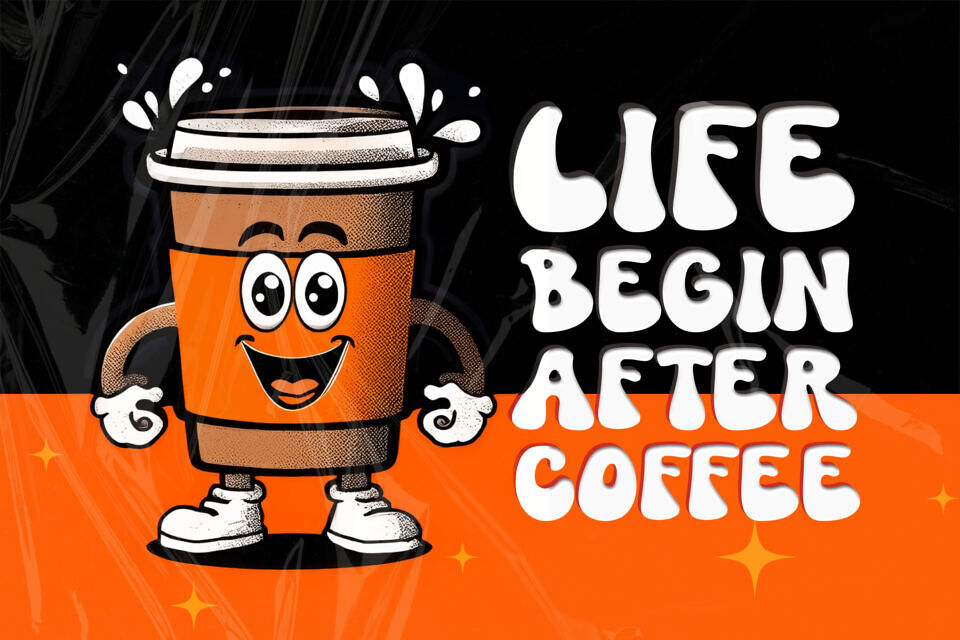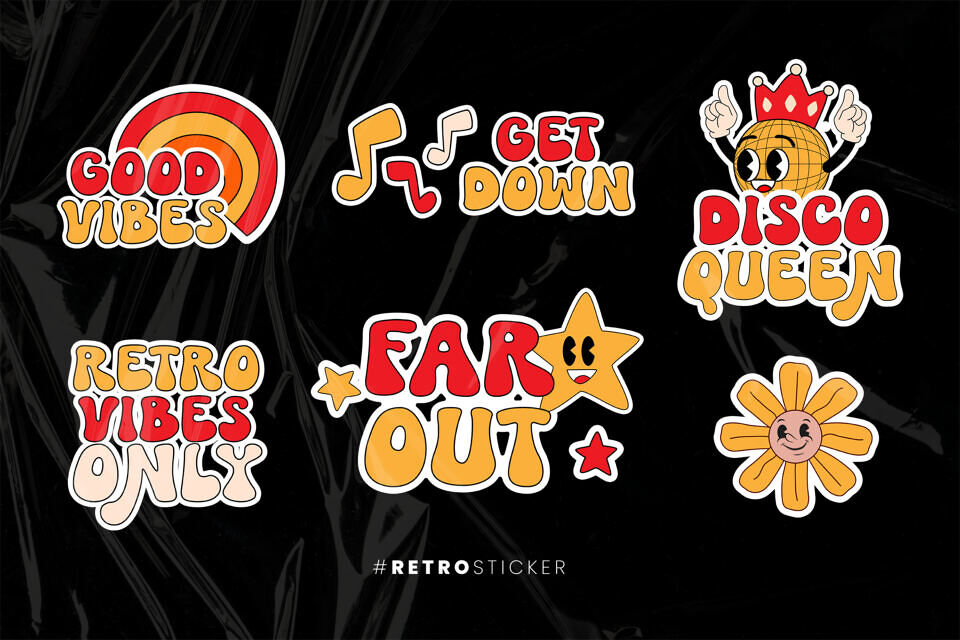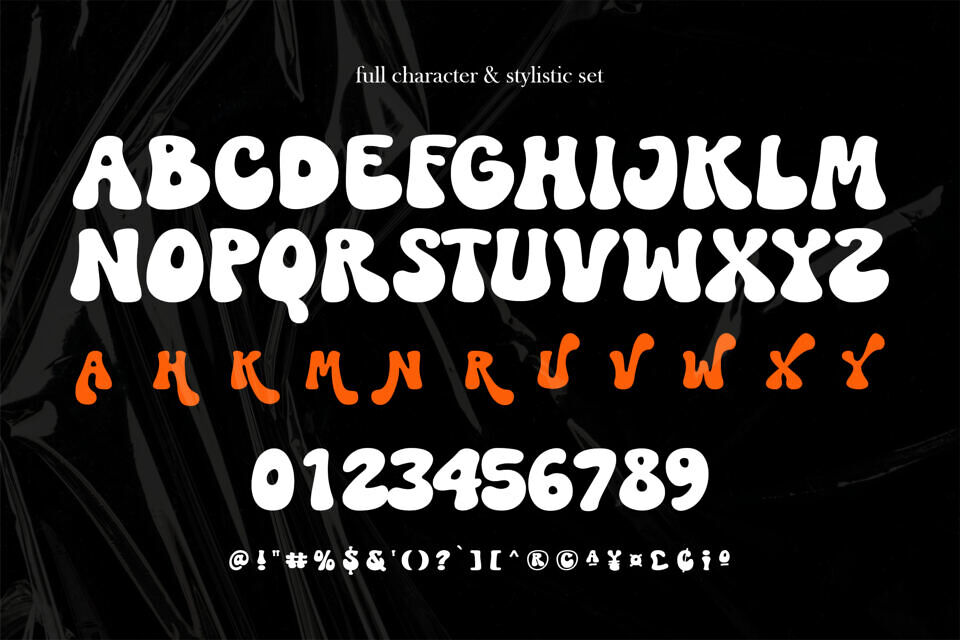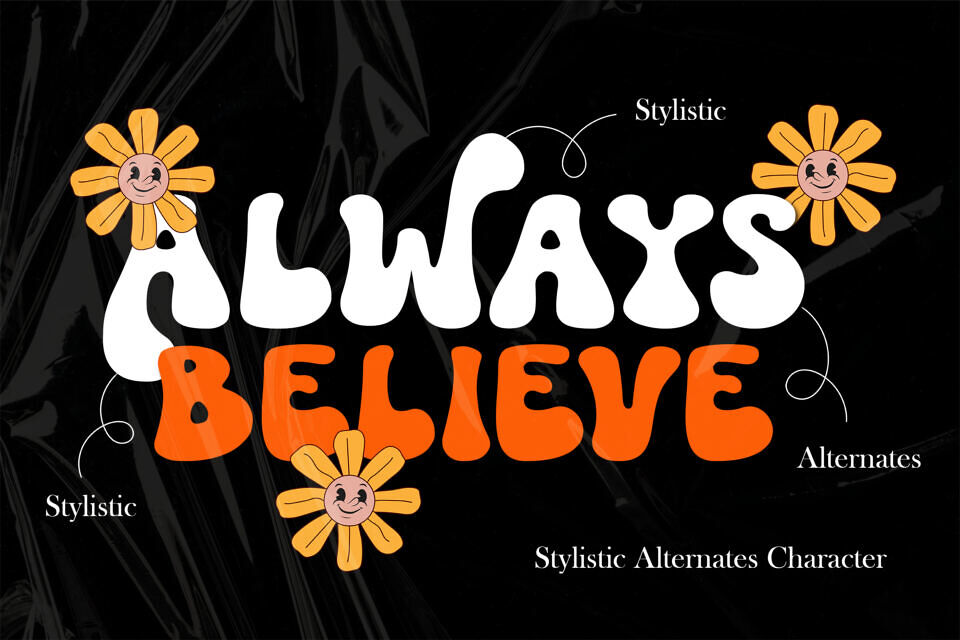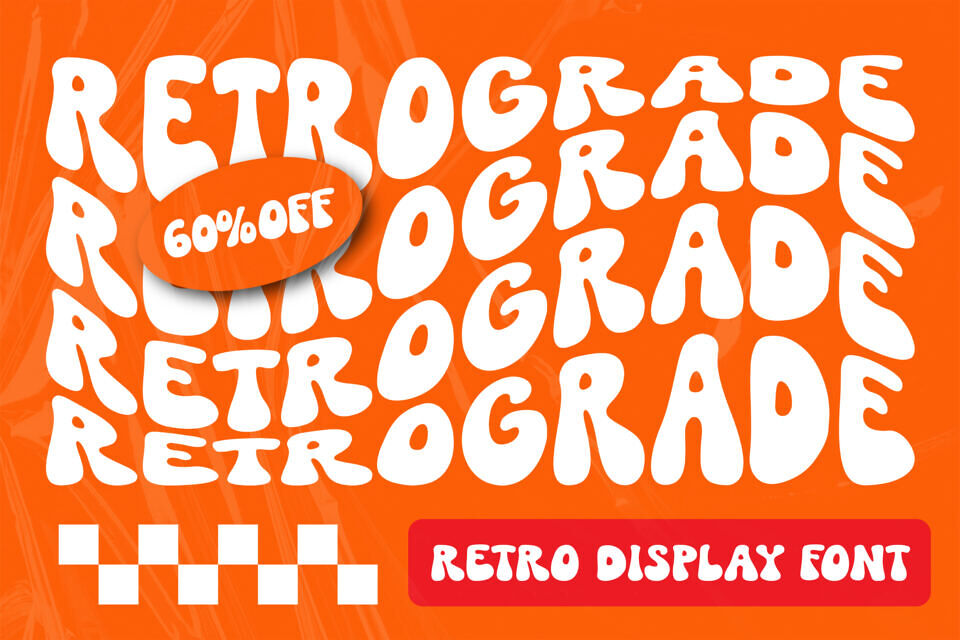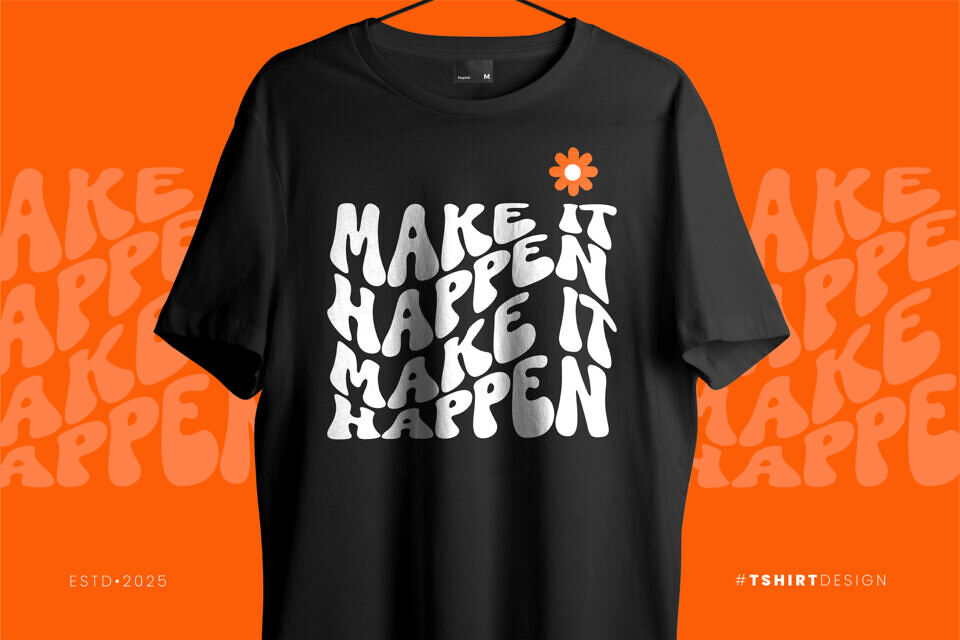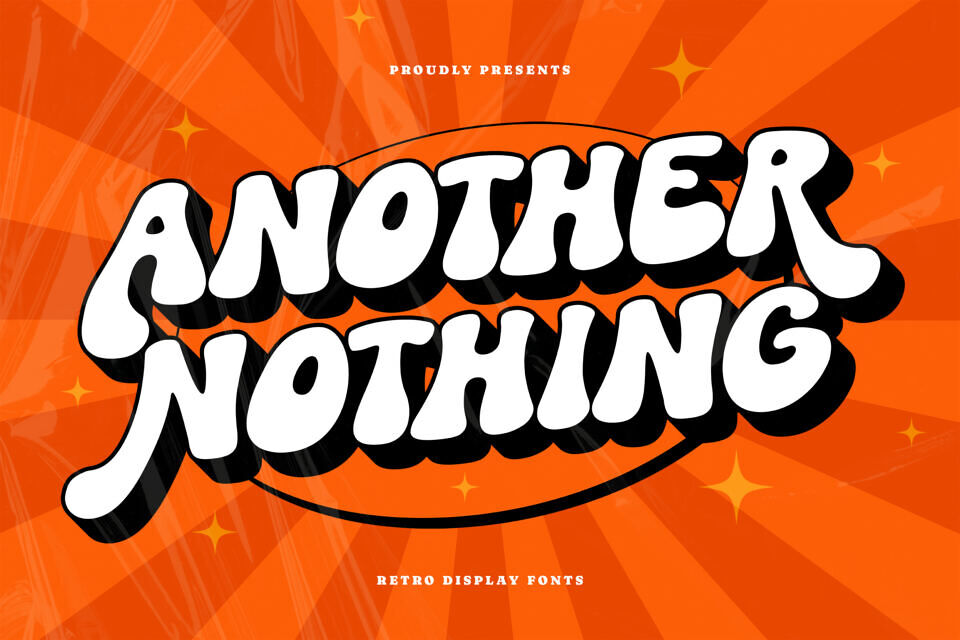
Another Nothing Font
Say hello to Another Nothing, a bold, bubbly font that brings retro vibes with a fun, modern twist! Inspired by 70s psychedelic styles, this display font is full of personality and perfect for designs that want to stand out and make a statement.
With chunky letterforms, playful curves, and dripping details, Another Nothing is your go-to font for posters, album covers, funky branding, merch, and anything that needs a splash of bold, creative energy. It also comes with a cool set of stylistic alternates (shown in orange) to help you mix things up and add extra flair to your designs.